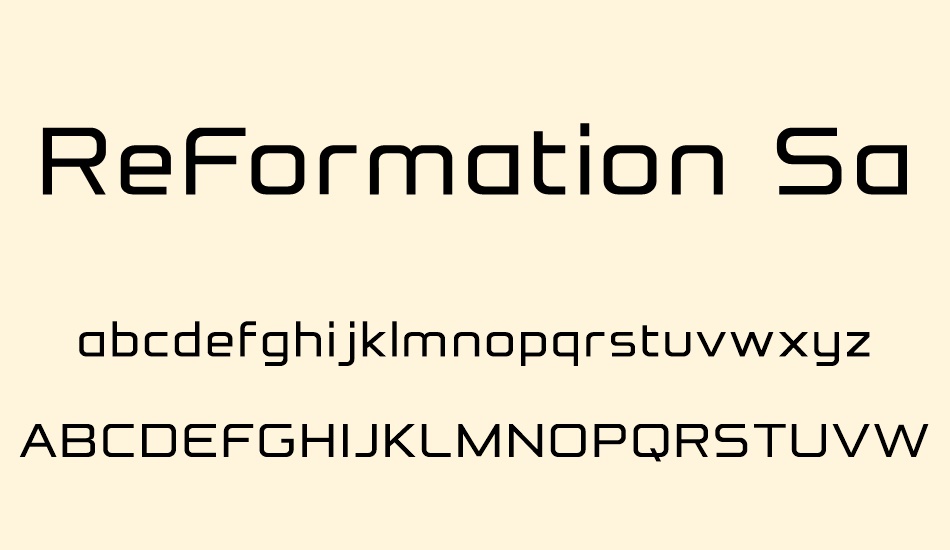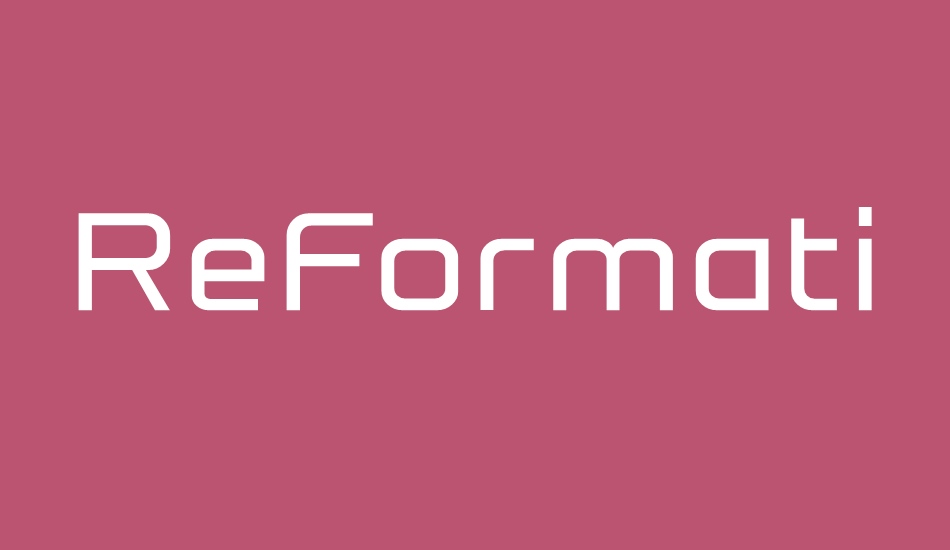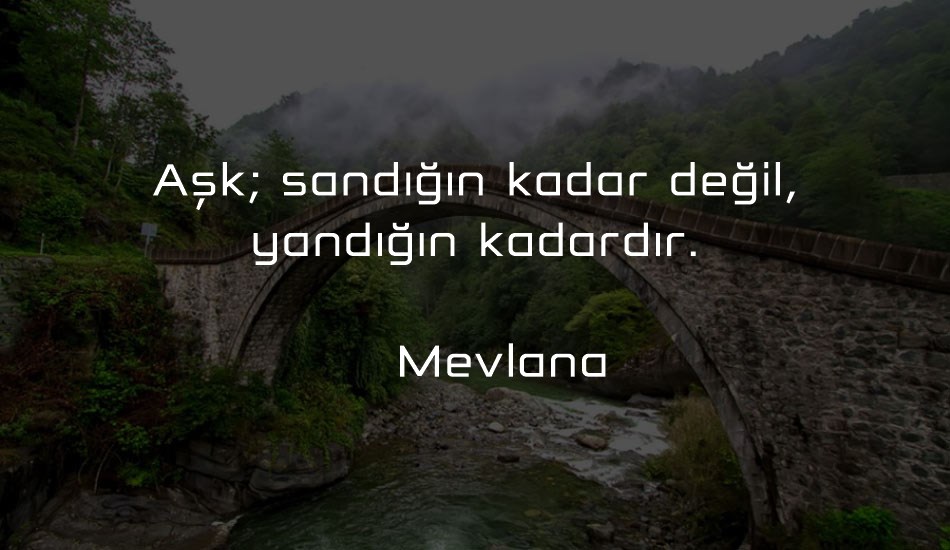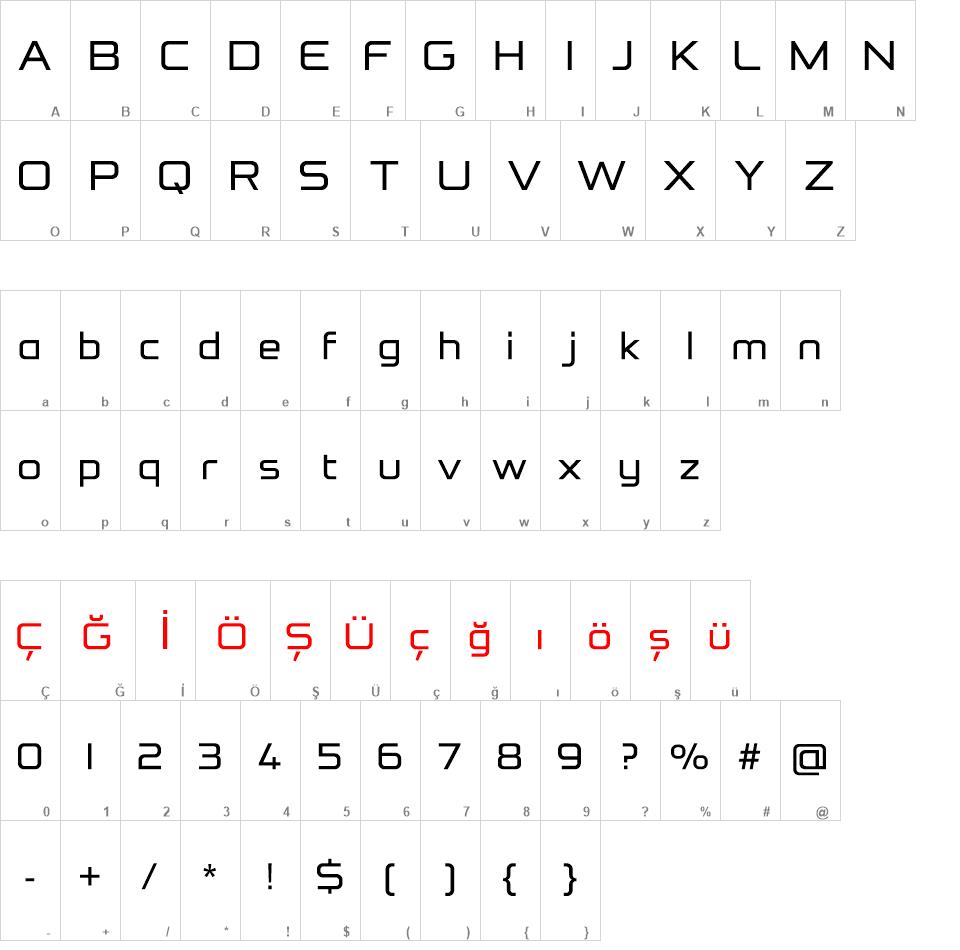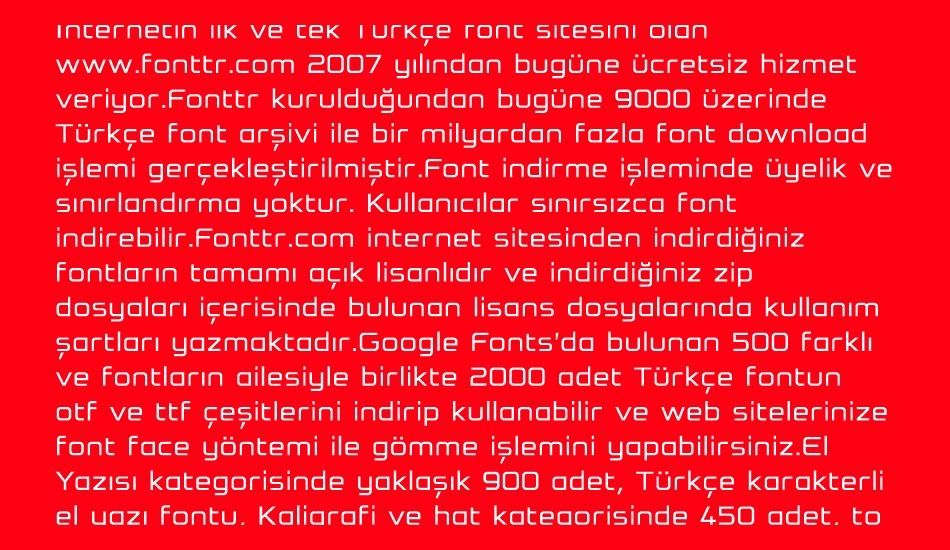
ReFormation Sans
ReFormation Sans is based on Formation Sans, but is not simply an update. In addition to a significantly expanded character set, a large number of the base characters both letters and numerals) have been redrawn, many with edited shapes and/or proportions.